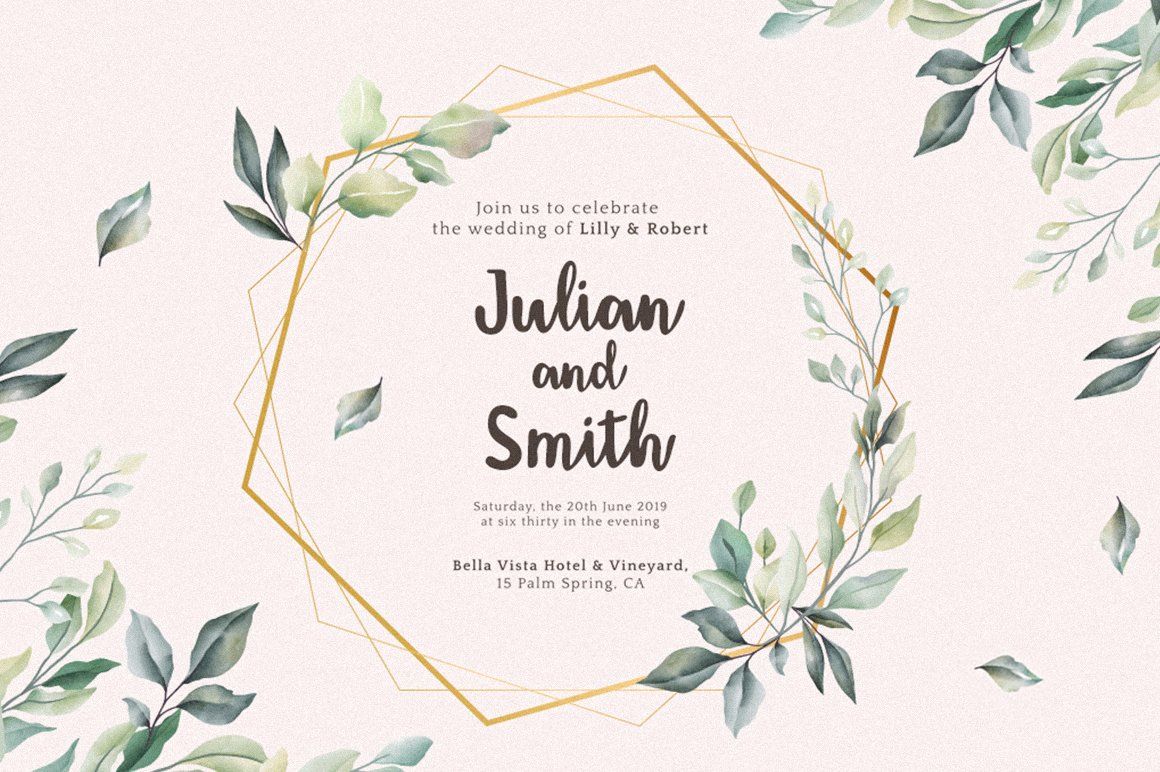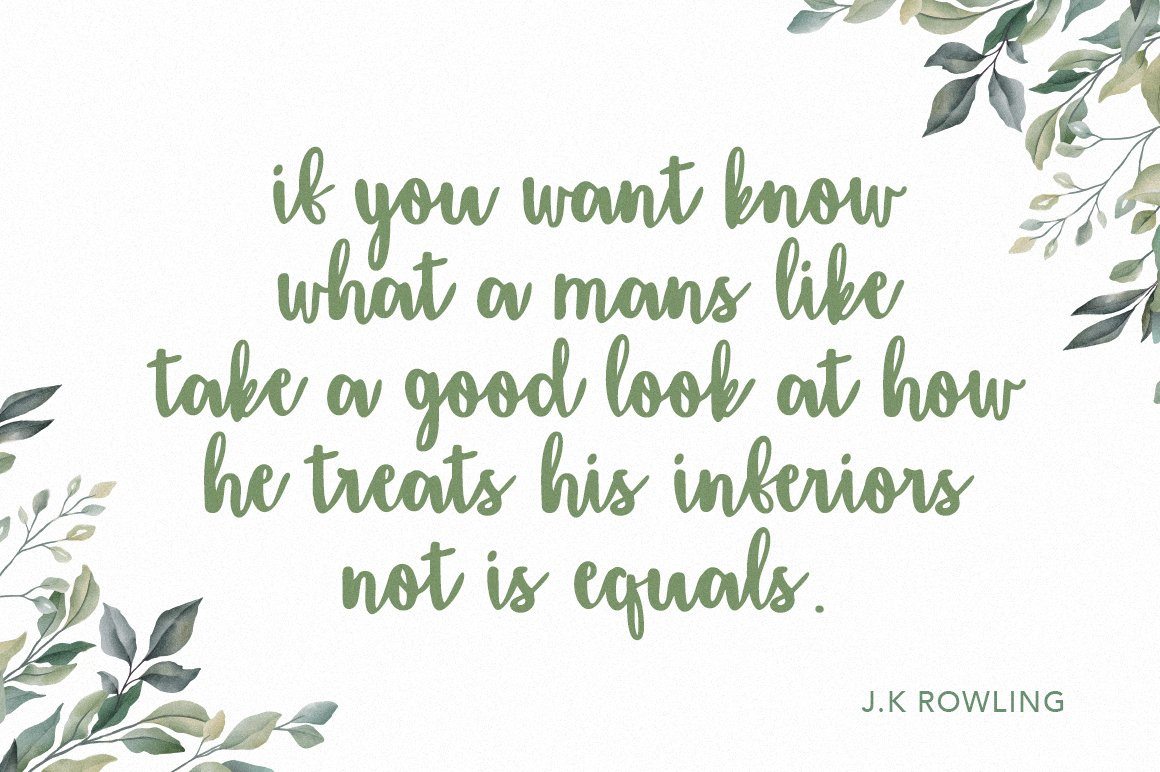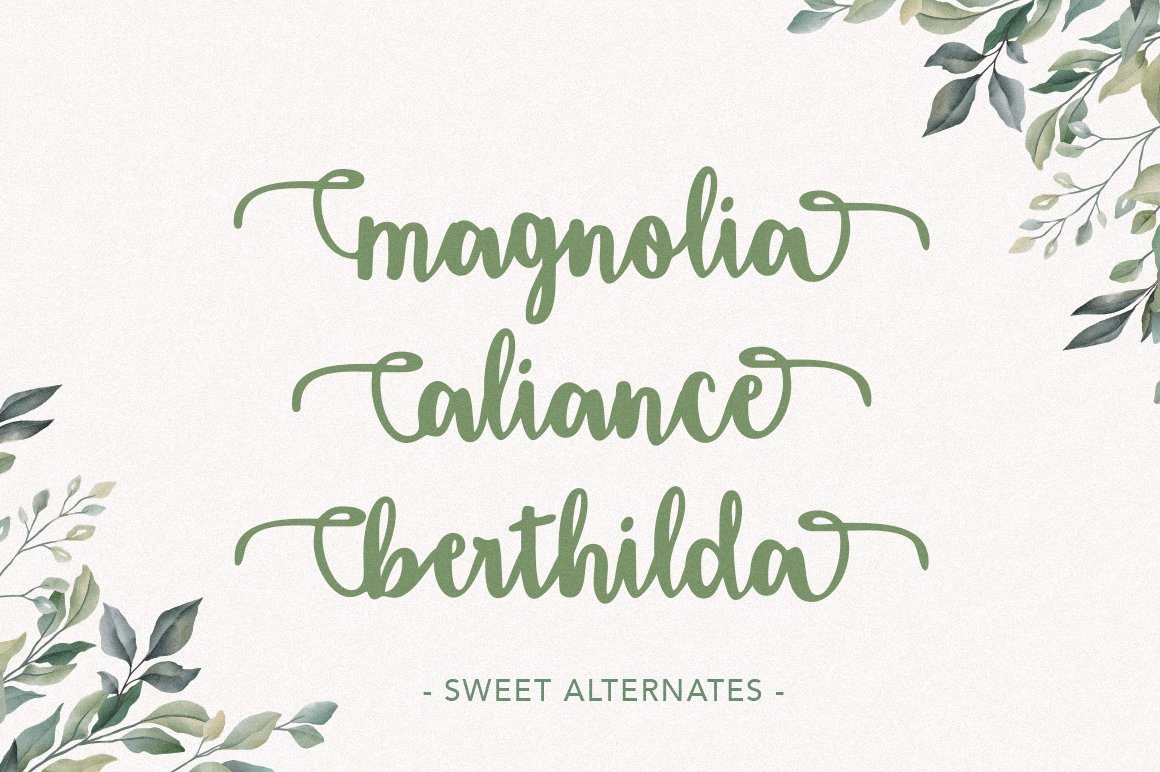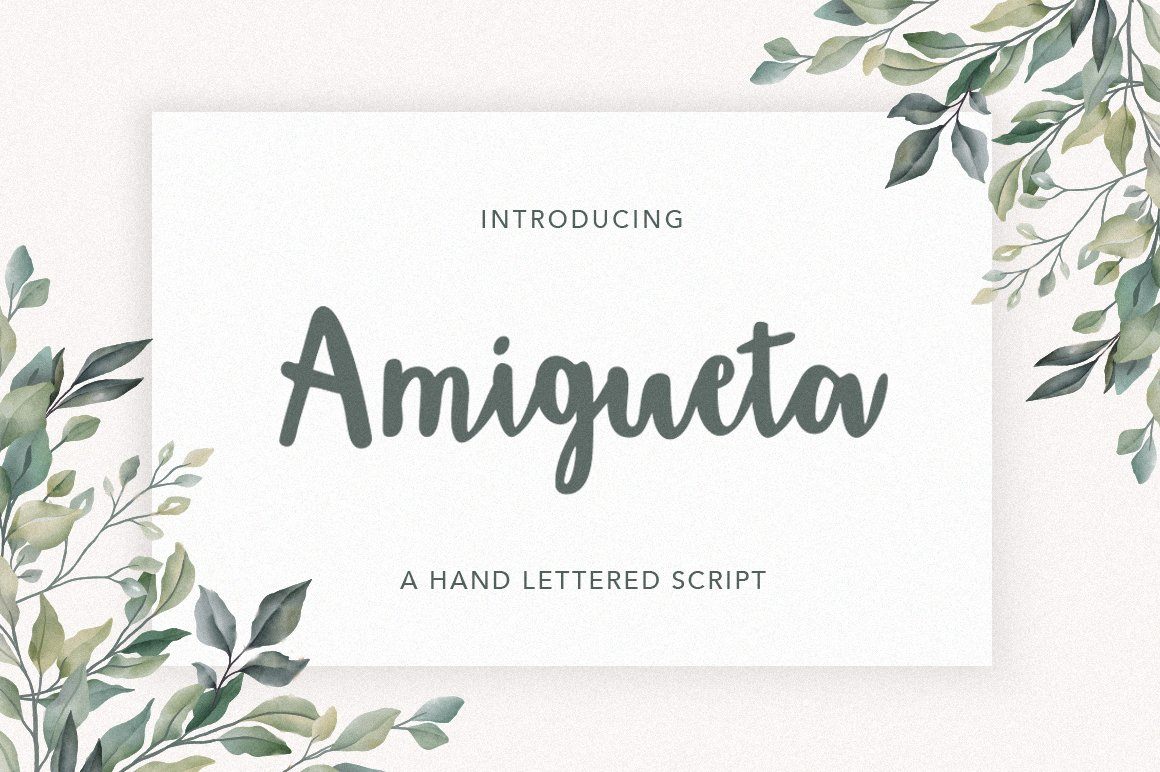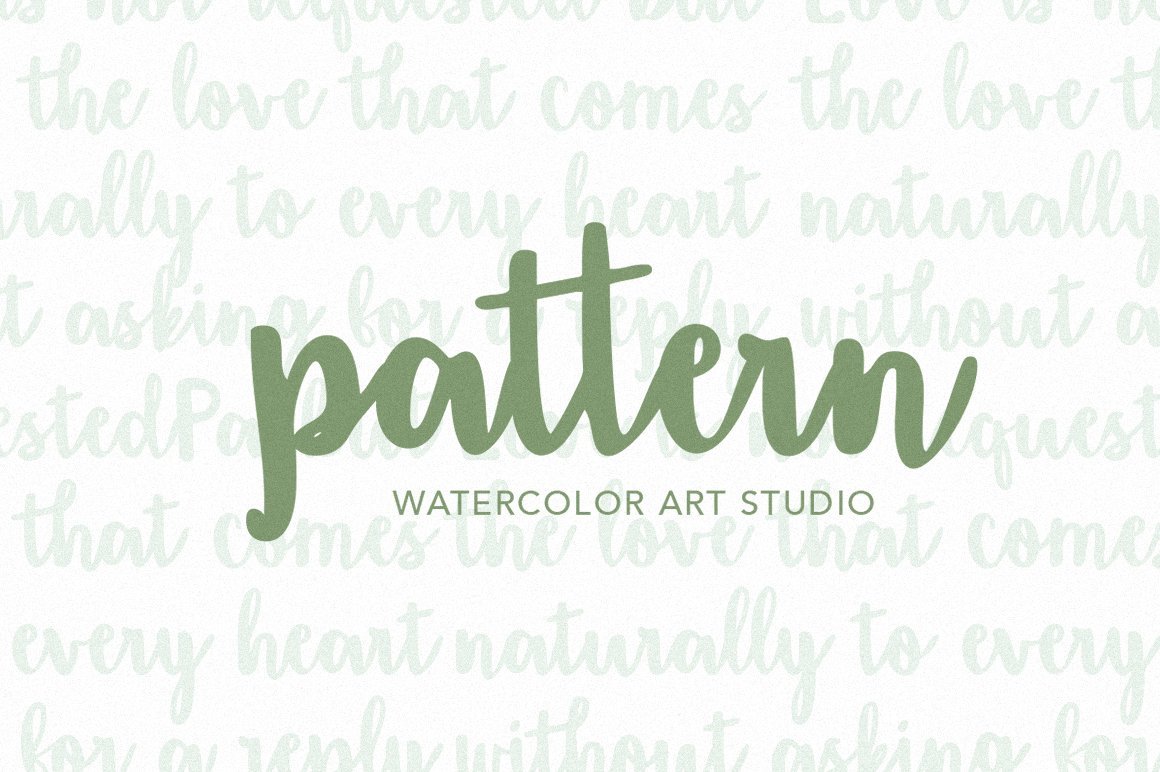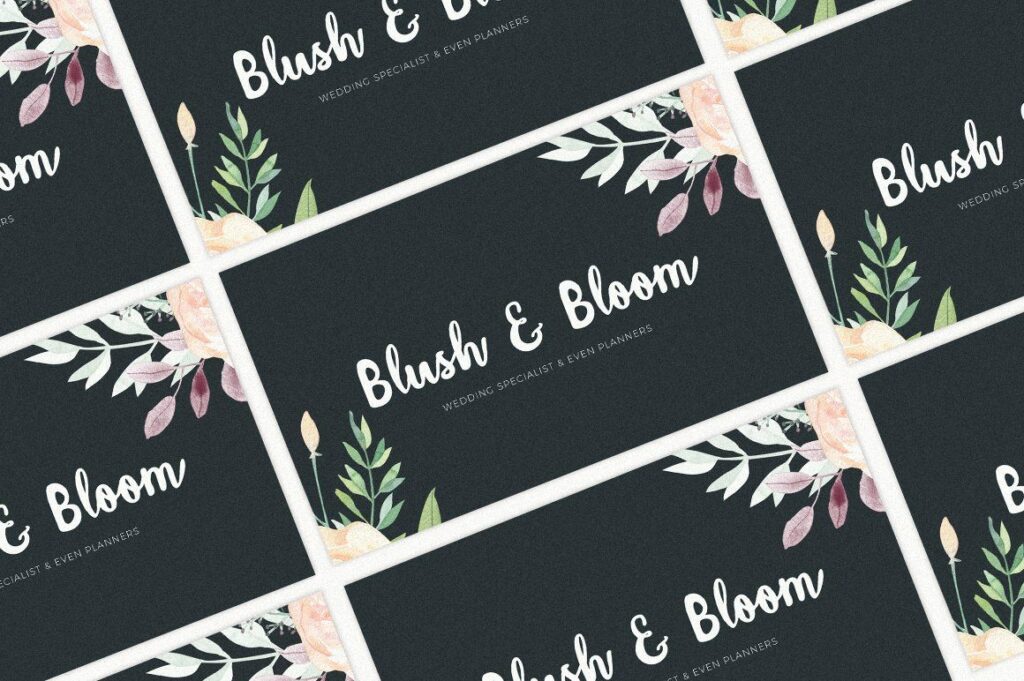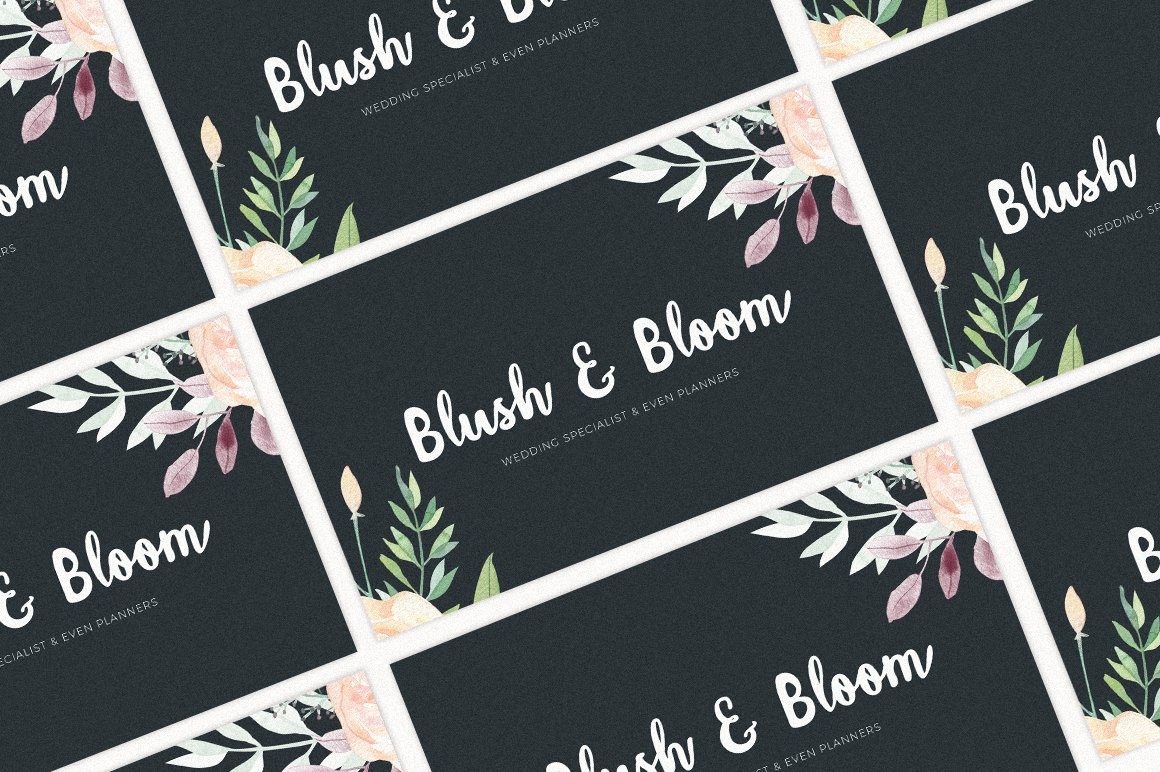
About Amigueta Script
Amigueta Script is a handlettered script font, dynamic and pretty with swashes. Can used for various purposes. such as the title, signature, logo, wedding invitations, letterhead, signage, labels, newsletters, posters, badges, etc. Amigueta Script features Open type feature, including initial and terminal letters,ligatures and International support for most Western Languages is included. Files included: Amigueta Script (Otf) Amigueta Script (Ttf) Thanks so much for looking and please let me know if you have any questions.